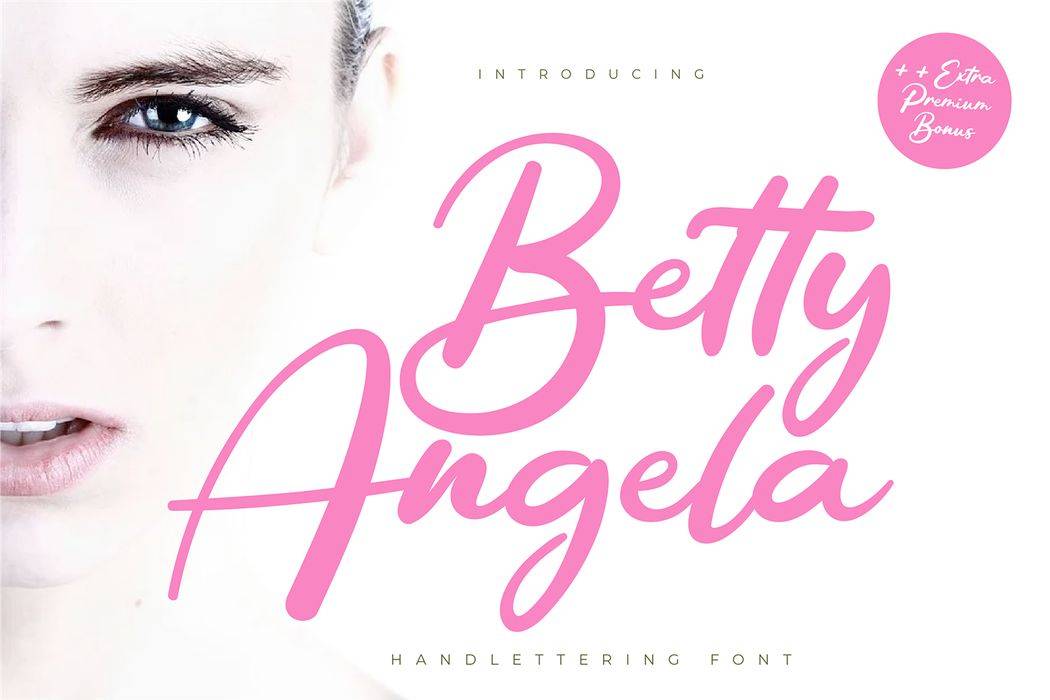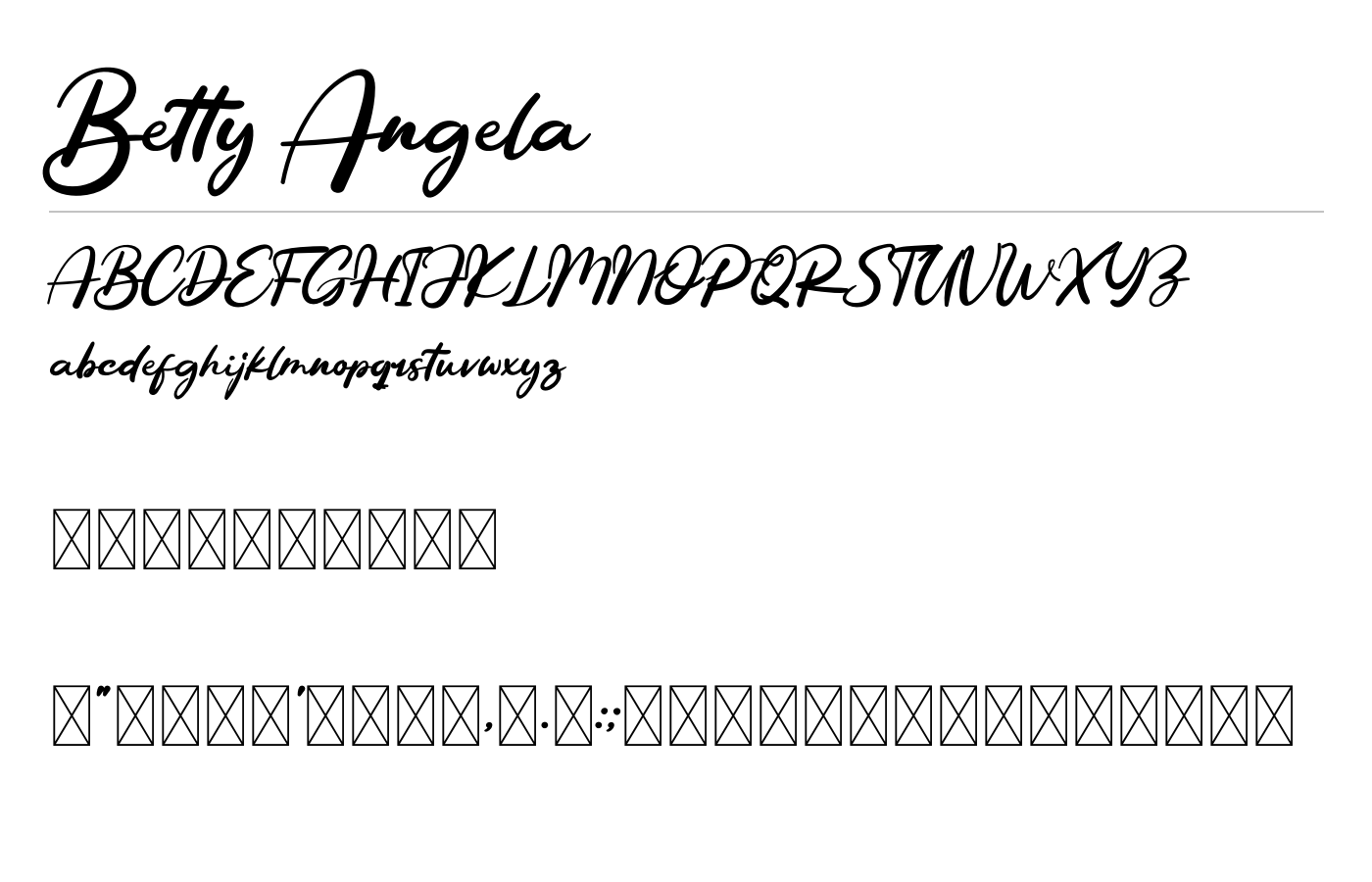
Betty Angela is a stylish script font featuring smooth, flowing strokes that create an elegant and personal feel. Its medium weight and moderate contrast make it ideal for invitations, branding, and headlines where a modern, friendly handwritten look is desired. This font works well in creative and feminine contexts, adding a touch of warmth and sophistication.
Betty Angela Font
About Betty Angela Font